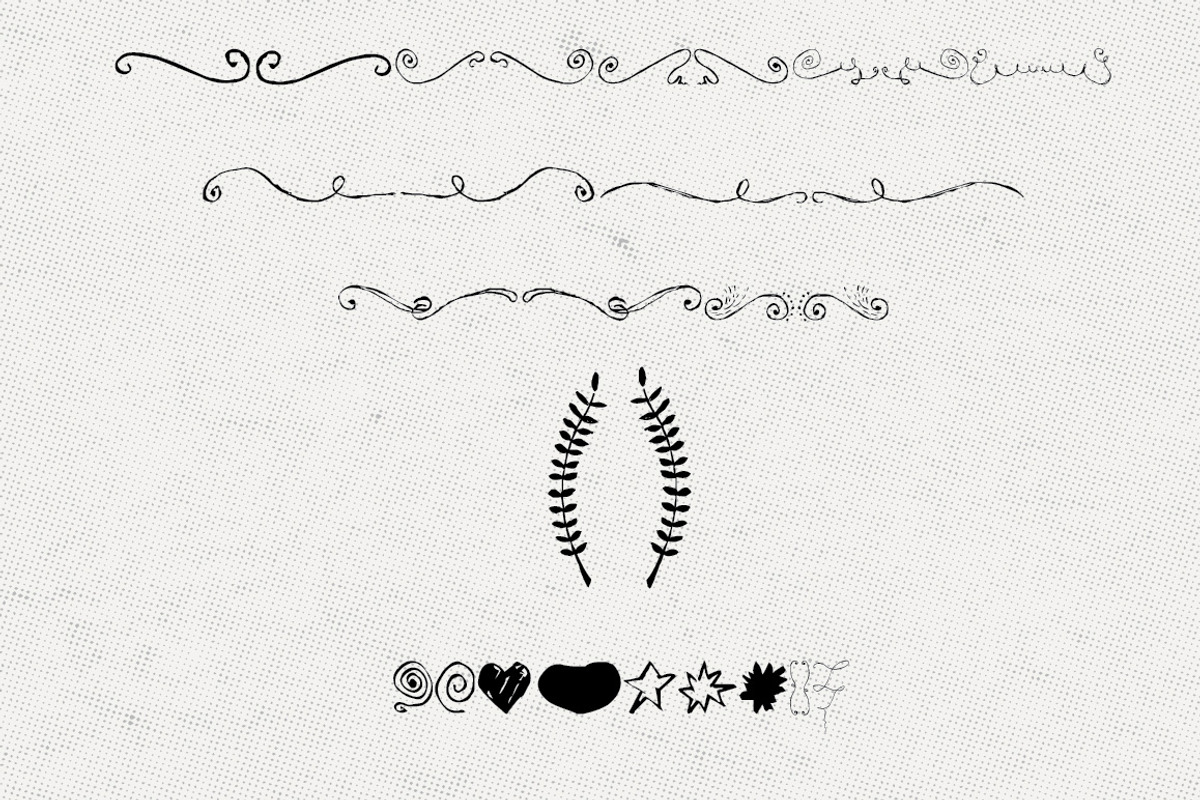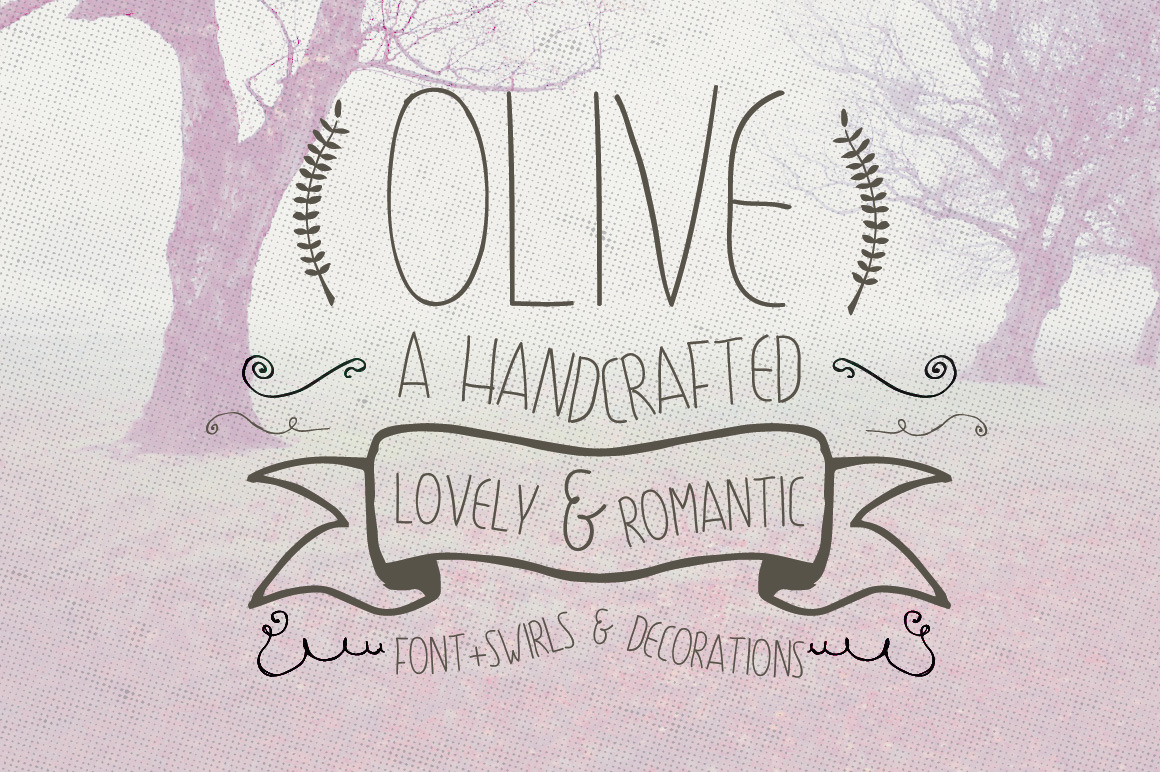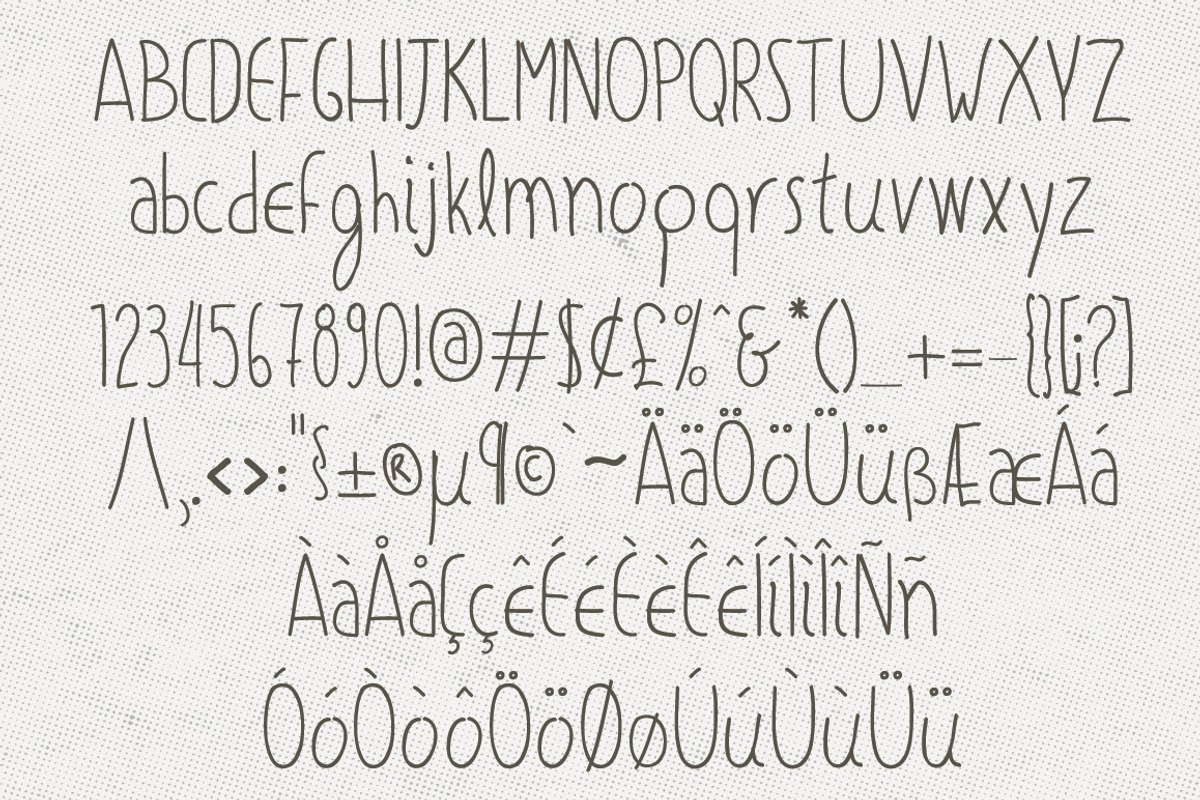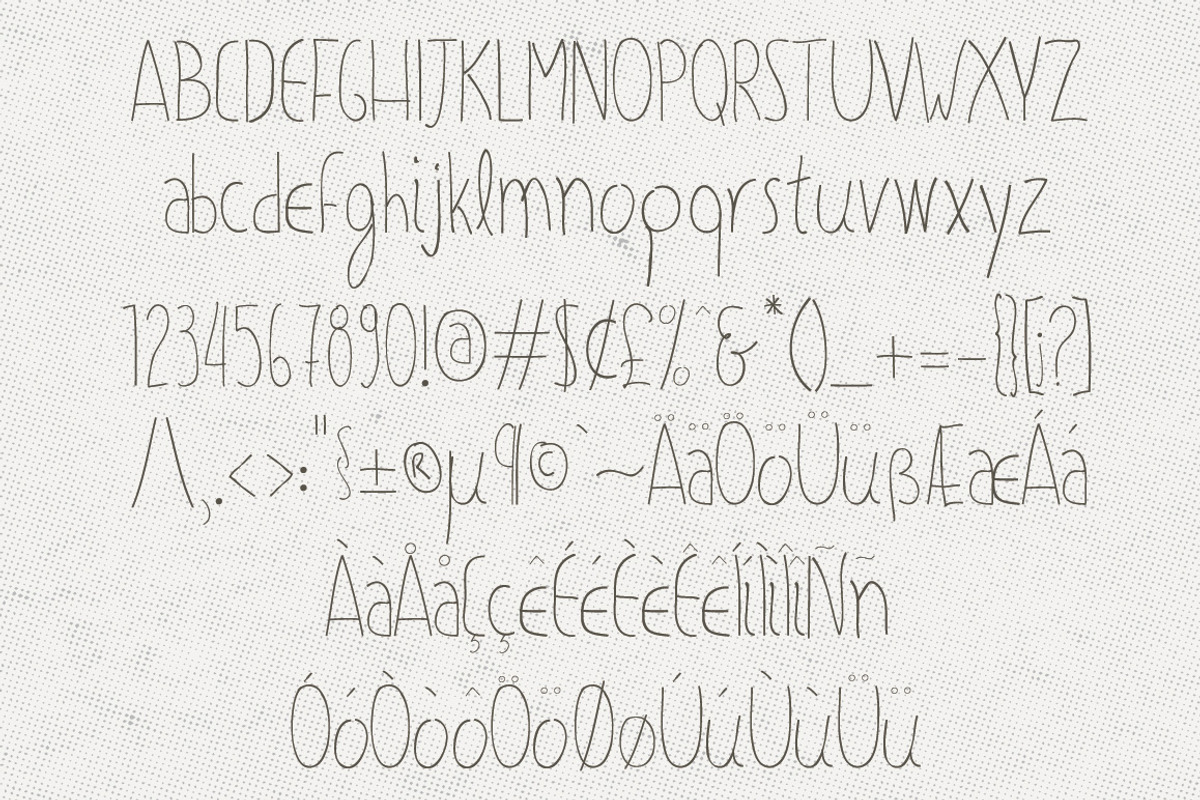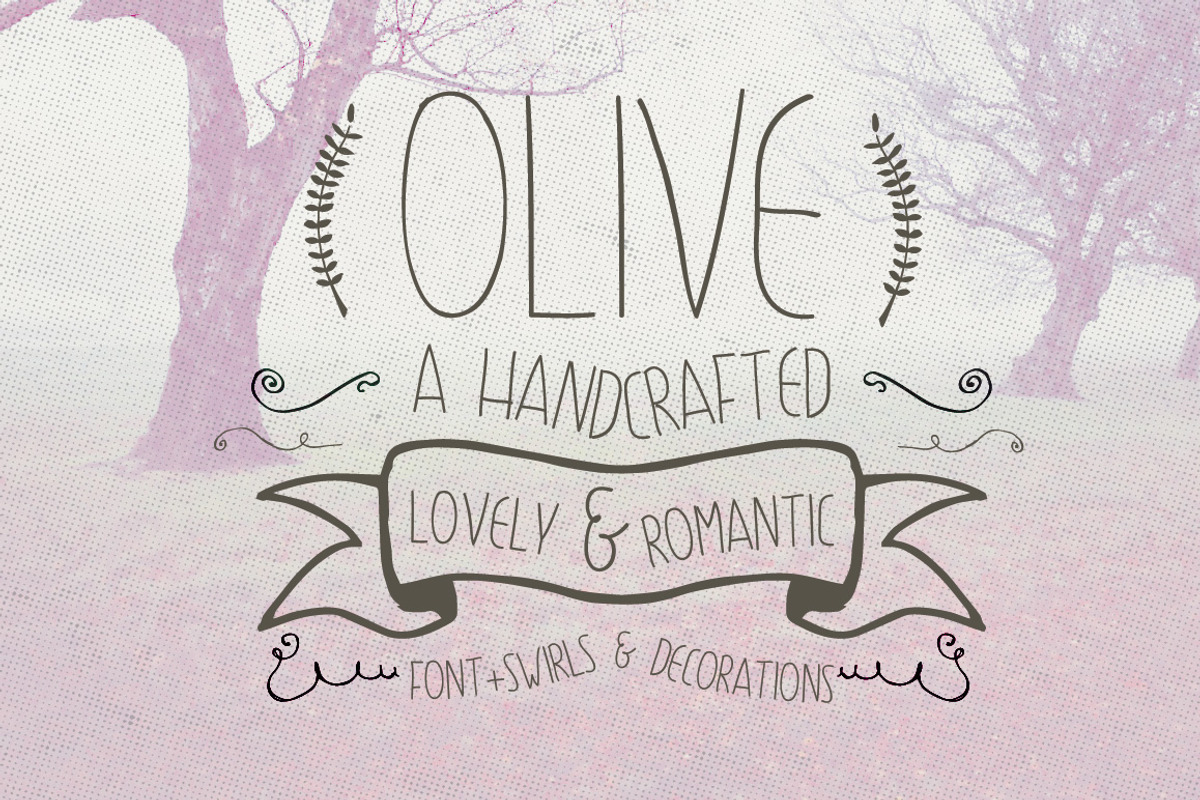
Olive Hand Drawn Font + Decorations
The font family is most suitable for headlines of all sizes. Olive font is applicable for any type of graphic design in print graphics and perfect for logos, badges, t-shirts and other items like posters. Also I recommend it for Wedding Invitations and other romantic events.
- Olive Thin
- Olive Regular
- Olive Decorations
SUPPORT FOR GERMAN / SCANDINAVIAN CHARACTERS (see preview images)